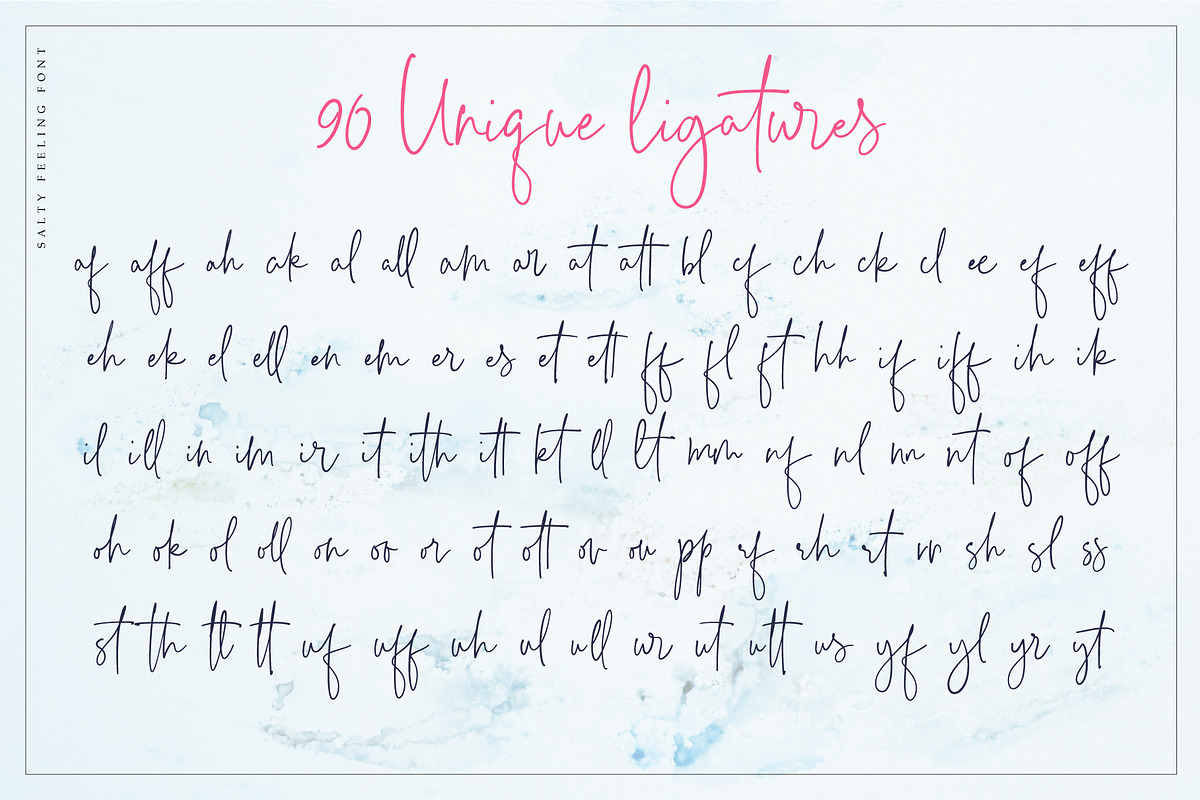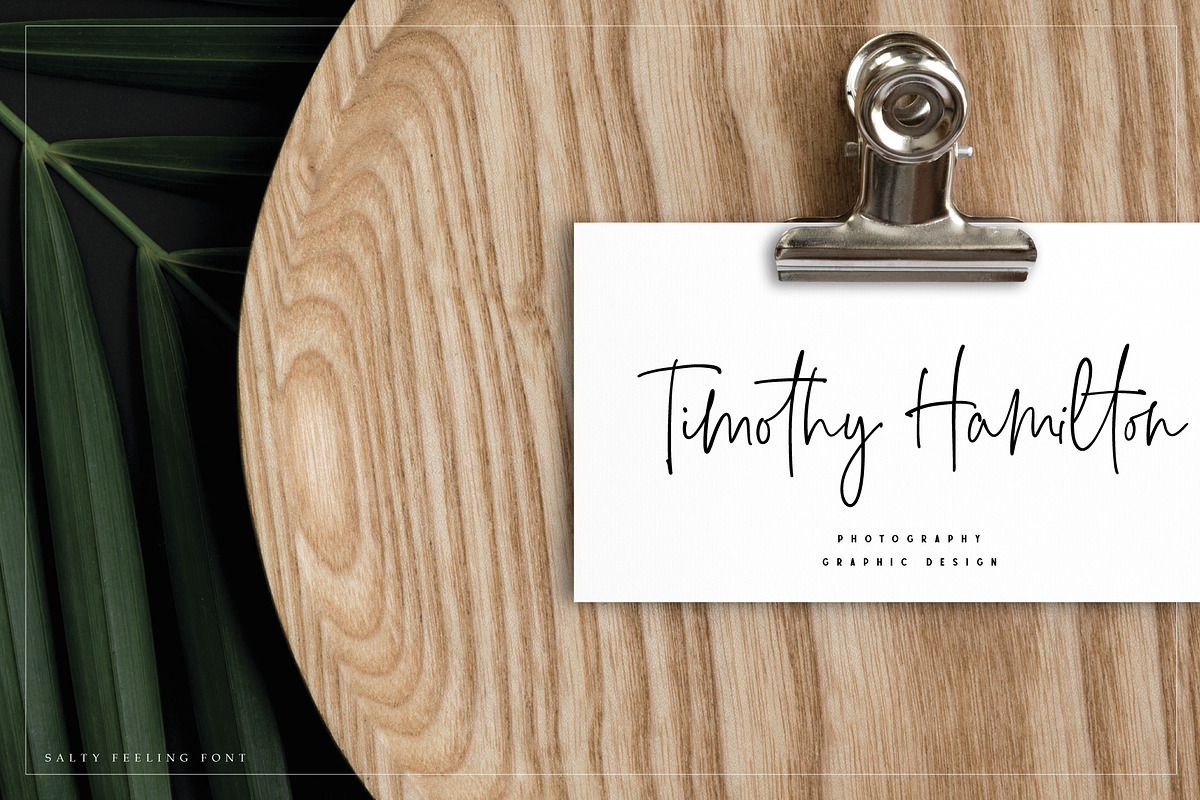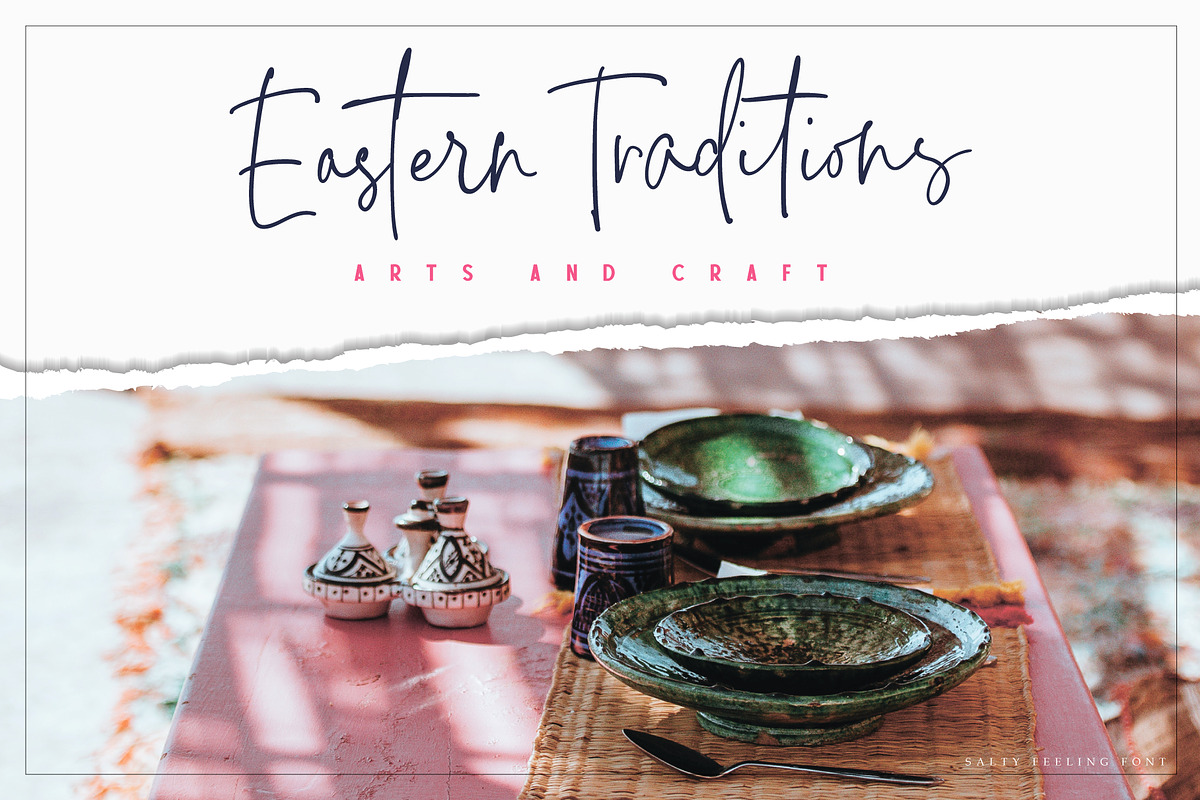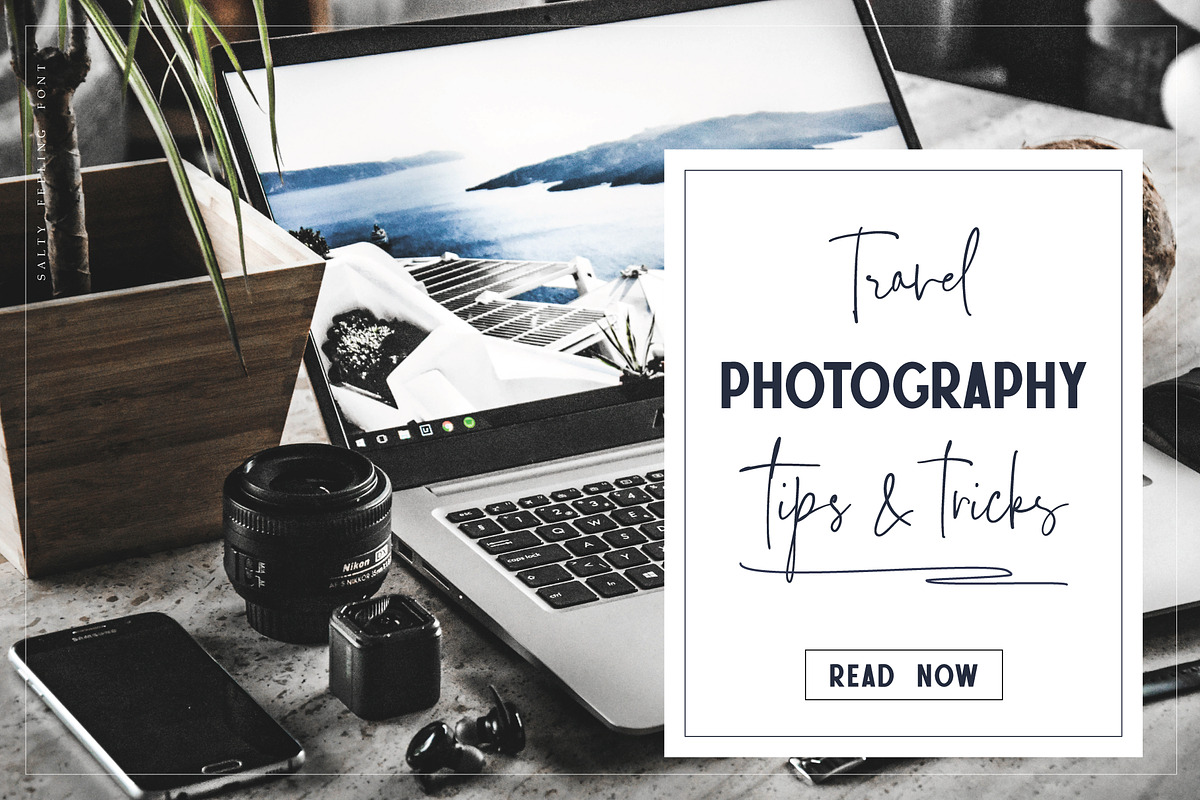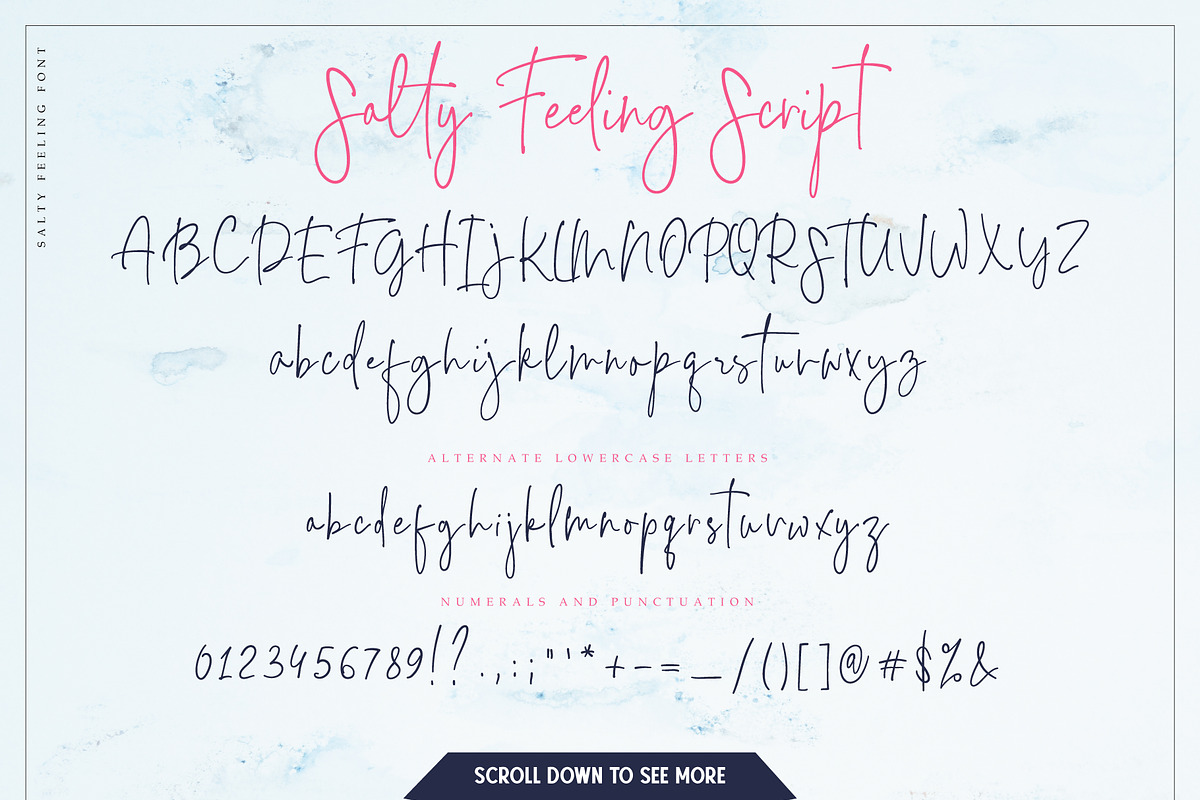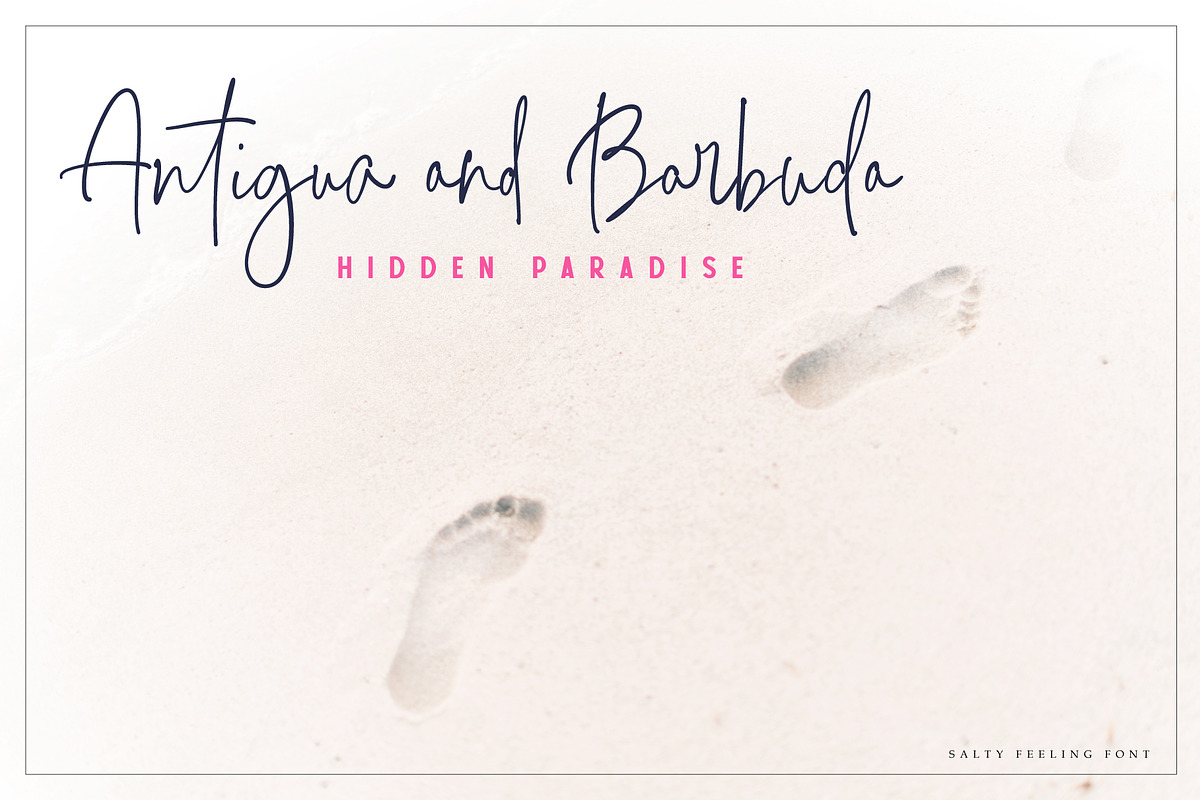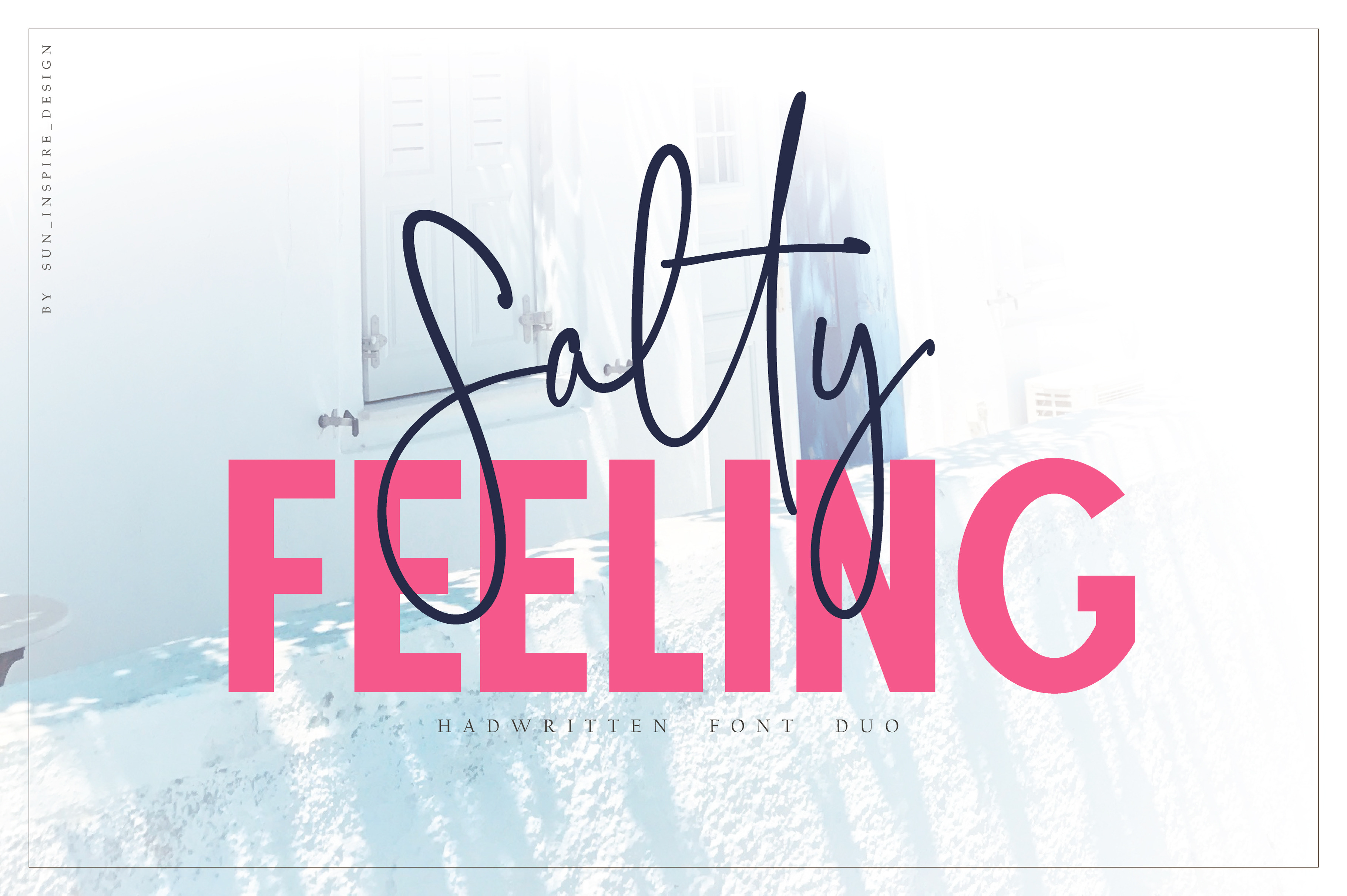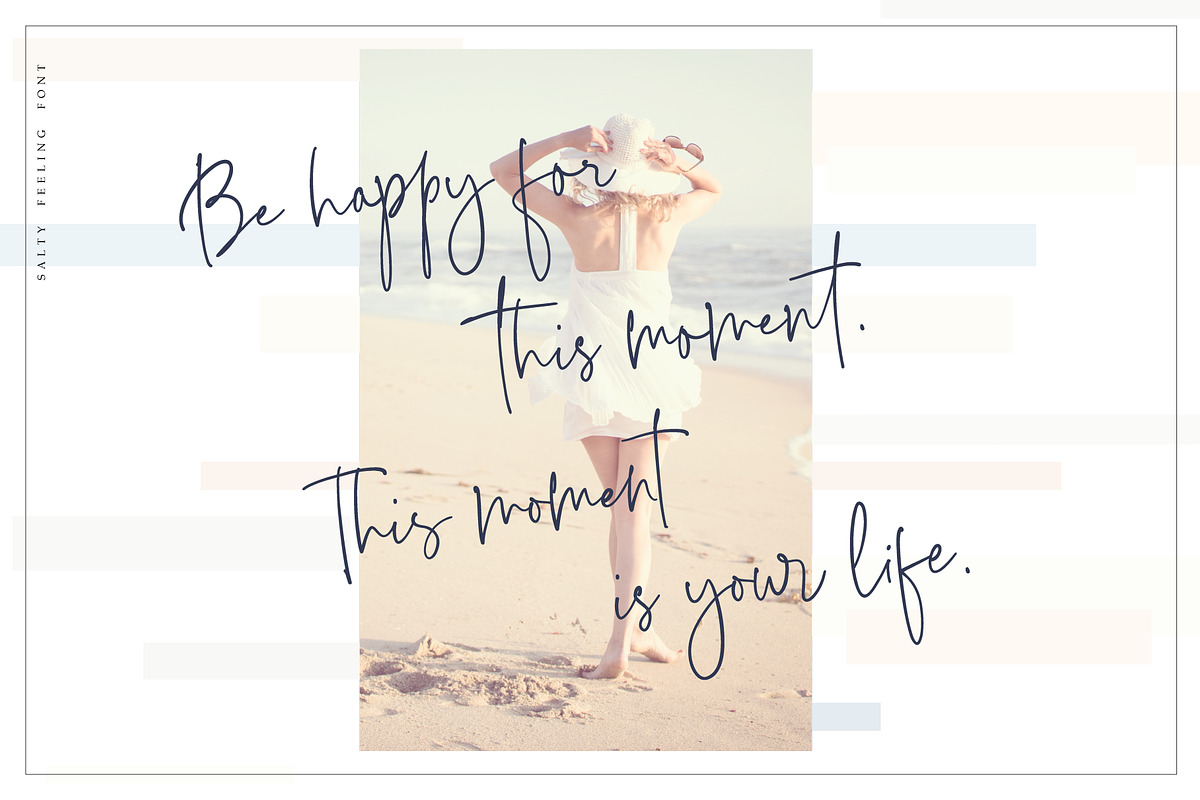
Salty Feeling font duo
Salty Feeling is a stylish collection of handwritten signature font and strict san serif font to complete it for various design projects - magazines, blog posts, social media, business cards etc.
Salty feeling script font contains:
- a full set of upper & lowercase characters;
- a full set of alternate lowercase characters;
- numerals and punctuation;
- 90 unique ligatures.
Salty feeling san serif font contains:
- a full set of uppercase characters;
- numerals and punctuation;